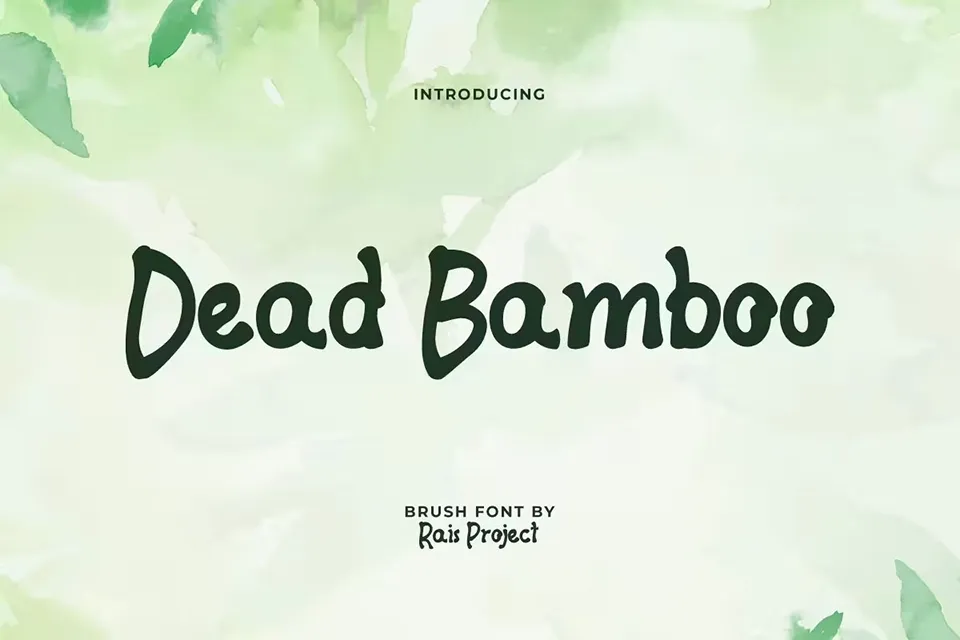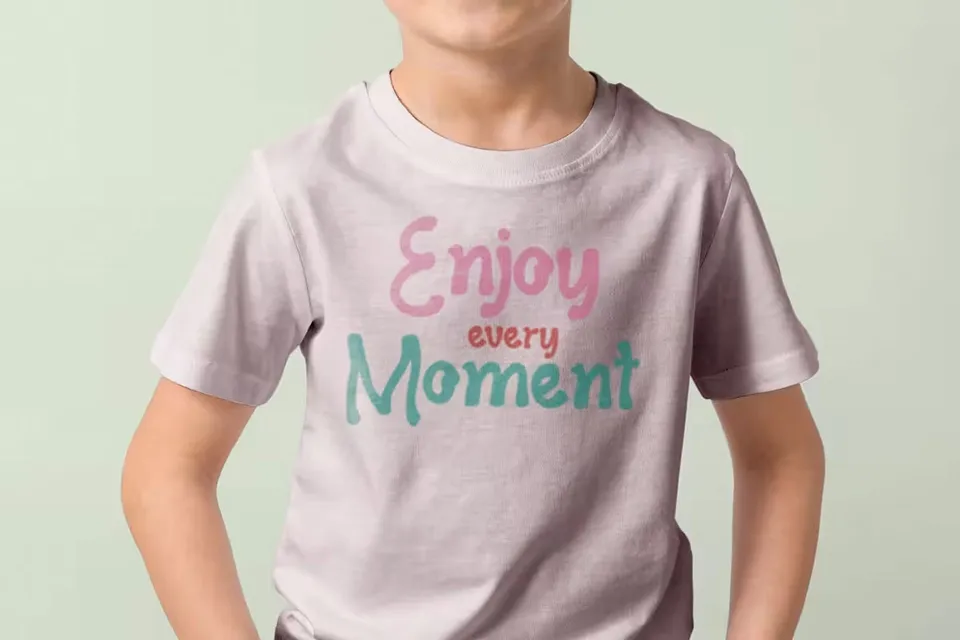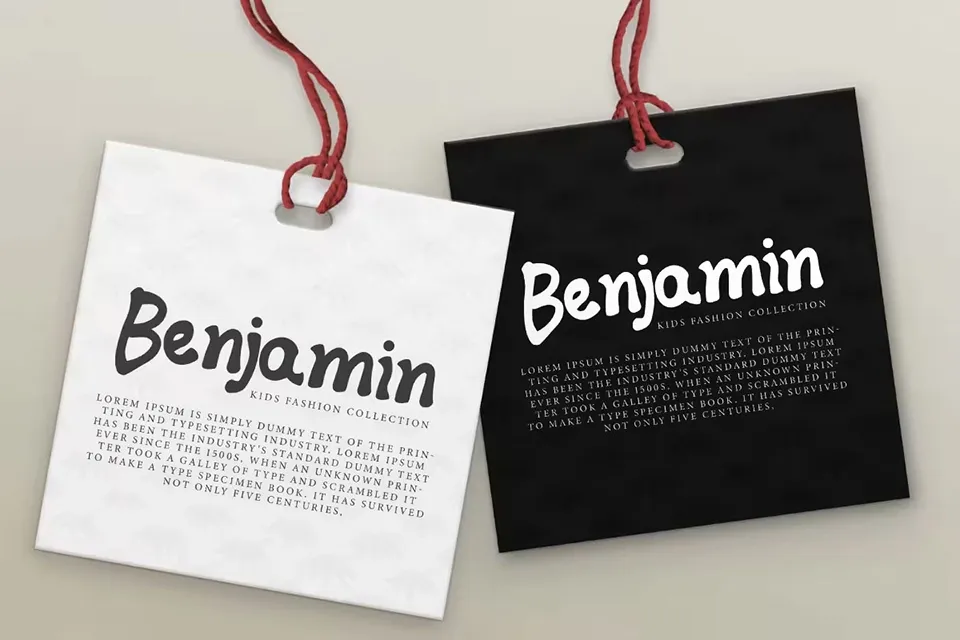
Dead Bamboo Font
Dead Bamboo Font is a wavy, playful display font inspired by the unique shape of bamboo sticks, exuding a fresh and natural feel. Its distinctive style combines nature and modern nuances, making it perfect for eye-catching designs such as brochures, covers, invitations, labels, posters, product packaging, quotes, and more. With a full set of uppercase and lowercase characters, numerals, punctuation, and multilingual support, Dead Bamboo Font is ideal for a wide range of industries including accessories, advertising, cafés, comics, fashion, games, kids’ products, publishing, and more.